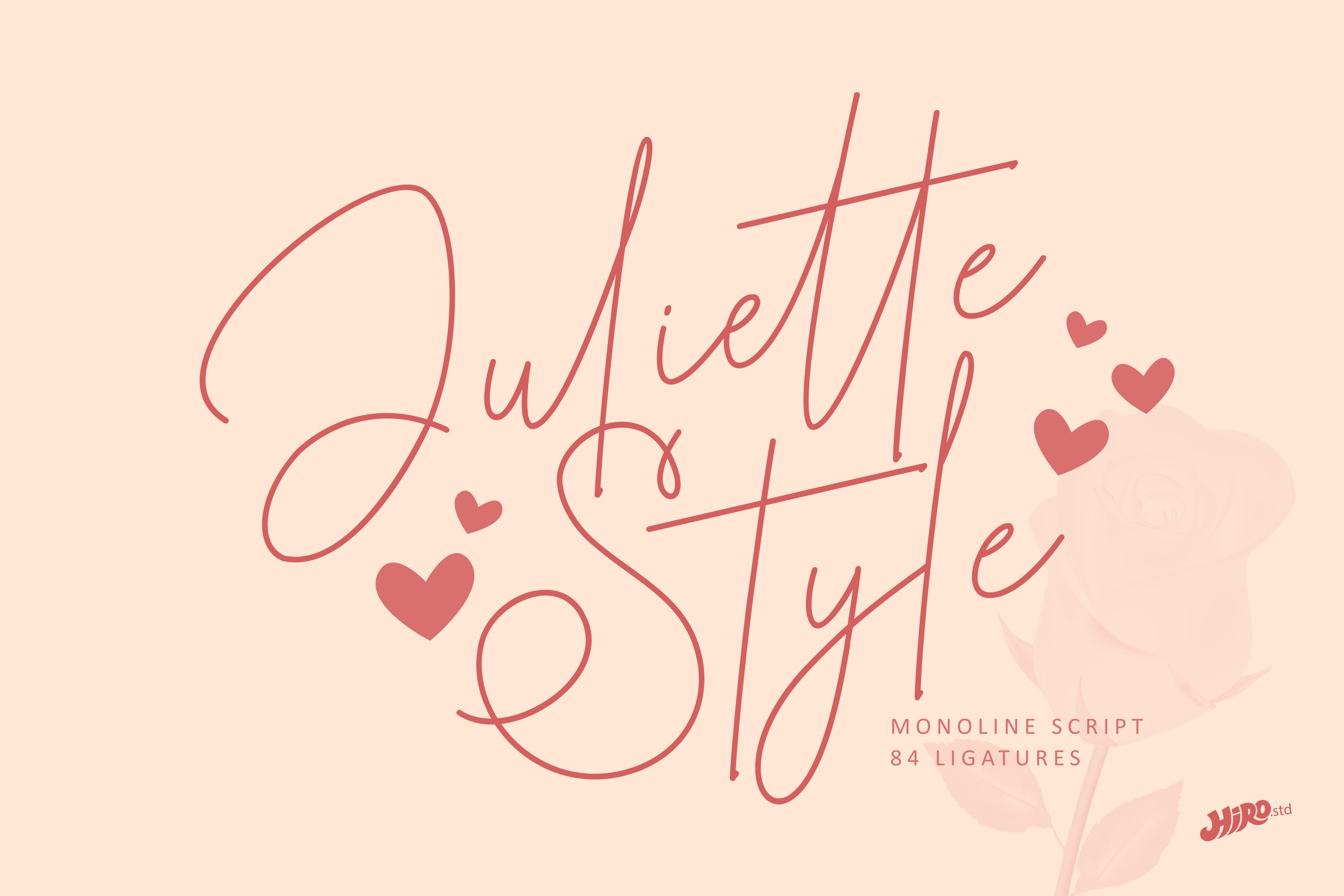
Juliette Style - Monoline Font
Juliette Style is Monoline Font.
This font describes about fashion, stylish, casual, classy, women, dynamic, easy to use and will bring a good harmony when the letters are connected and paired each other.
- Uppercase and lowercase letters
- 84 Opentype Ligatures
USE Juliette Style works great in any logotype, wedding invitation, merchandise, stationery, magazines, product packaging, quotes and any projects that need all about love script taste.